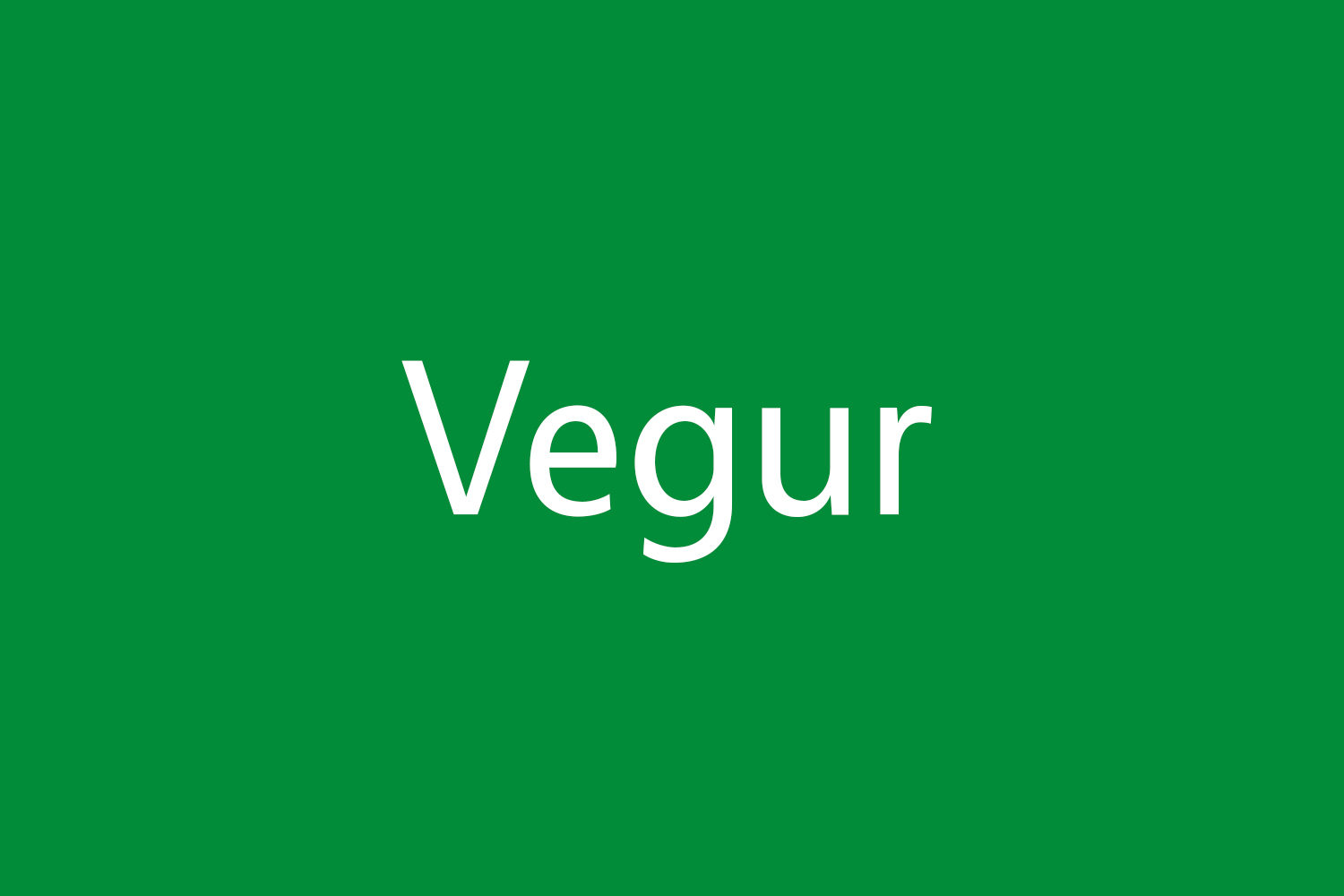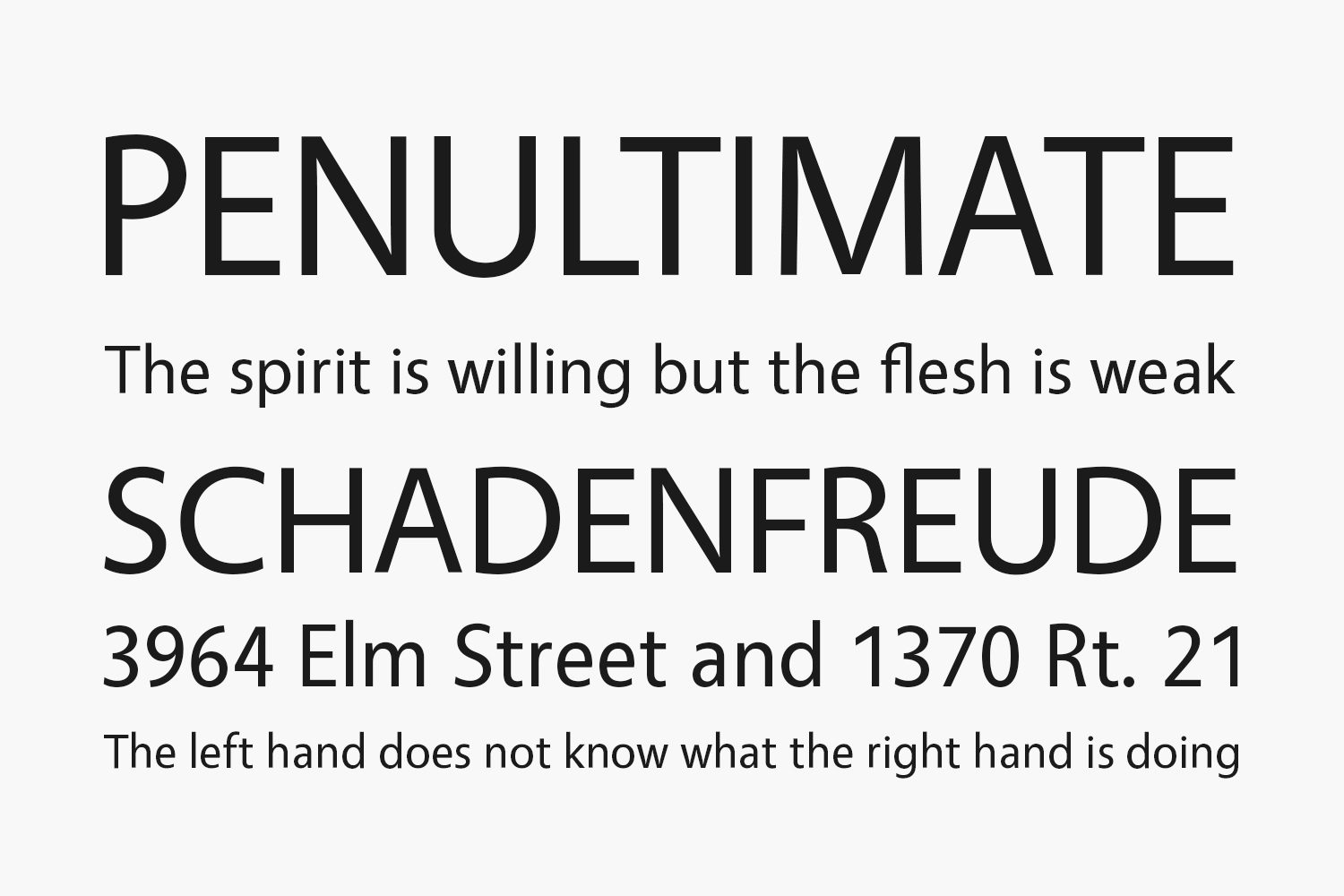
Vegur Free Font Family is a humanist sans serif font developed for the dot colon logo type.
We reviewed the design from scratch by updating to the 0.700 version and finished it with a sharp impression by arranging the part that had been elongated. In addition, it adjusts to longer body more than the previous version, so that it becomes a clean impression as a whole. Especially I think that the impression has changed greatly with this update as well as the Bold weight which had been elongated.
Designed by Dot Colon